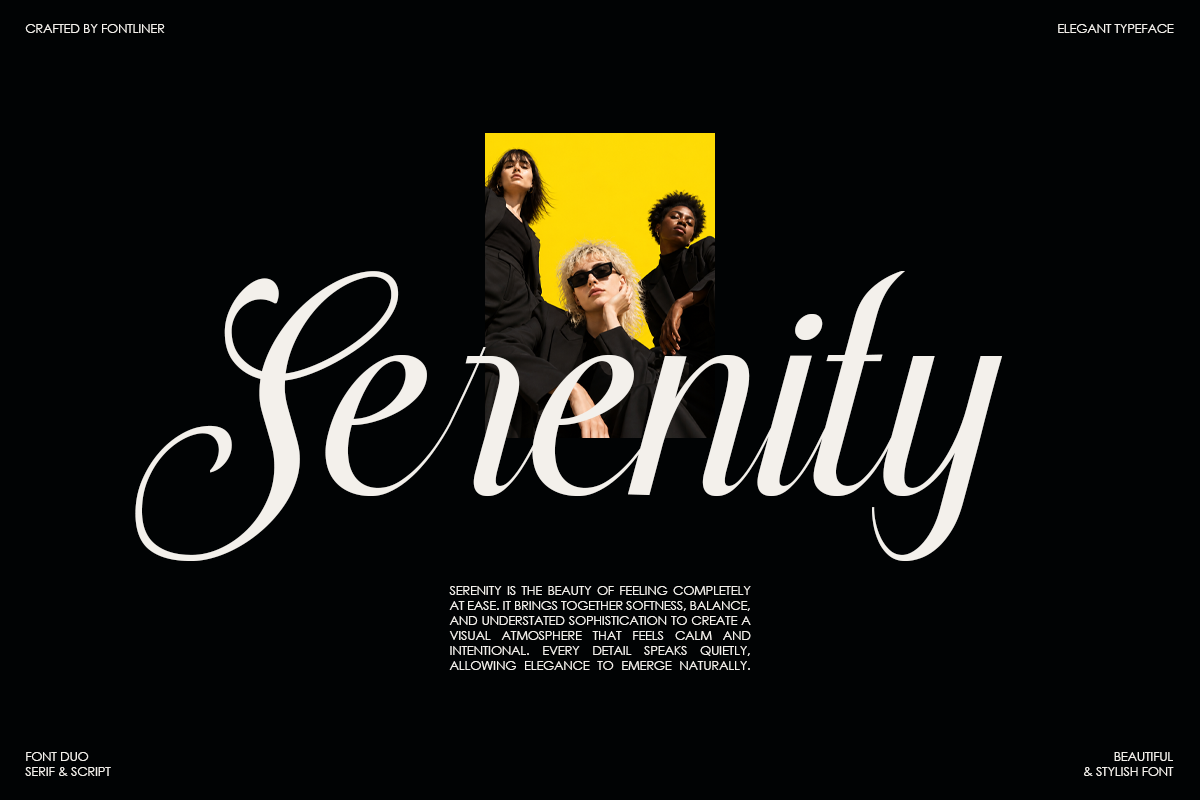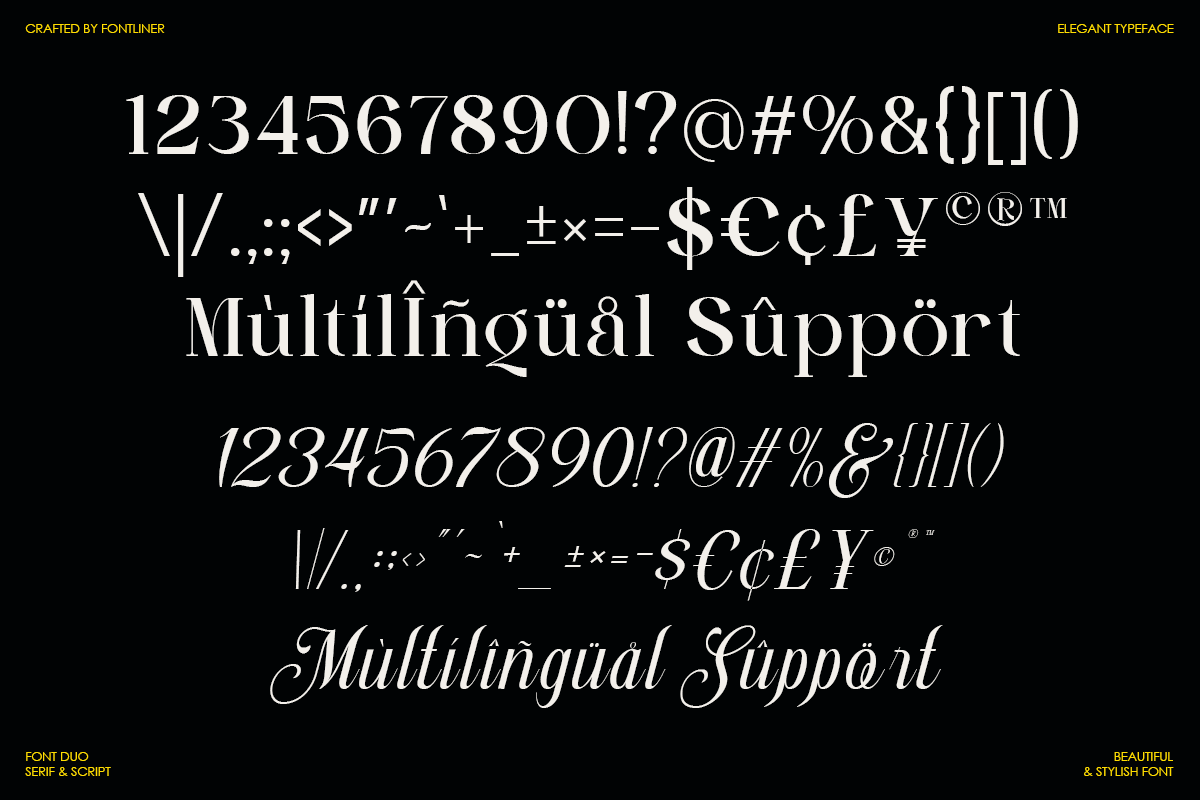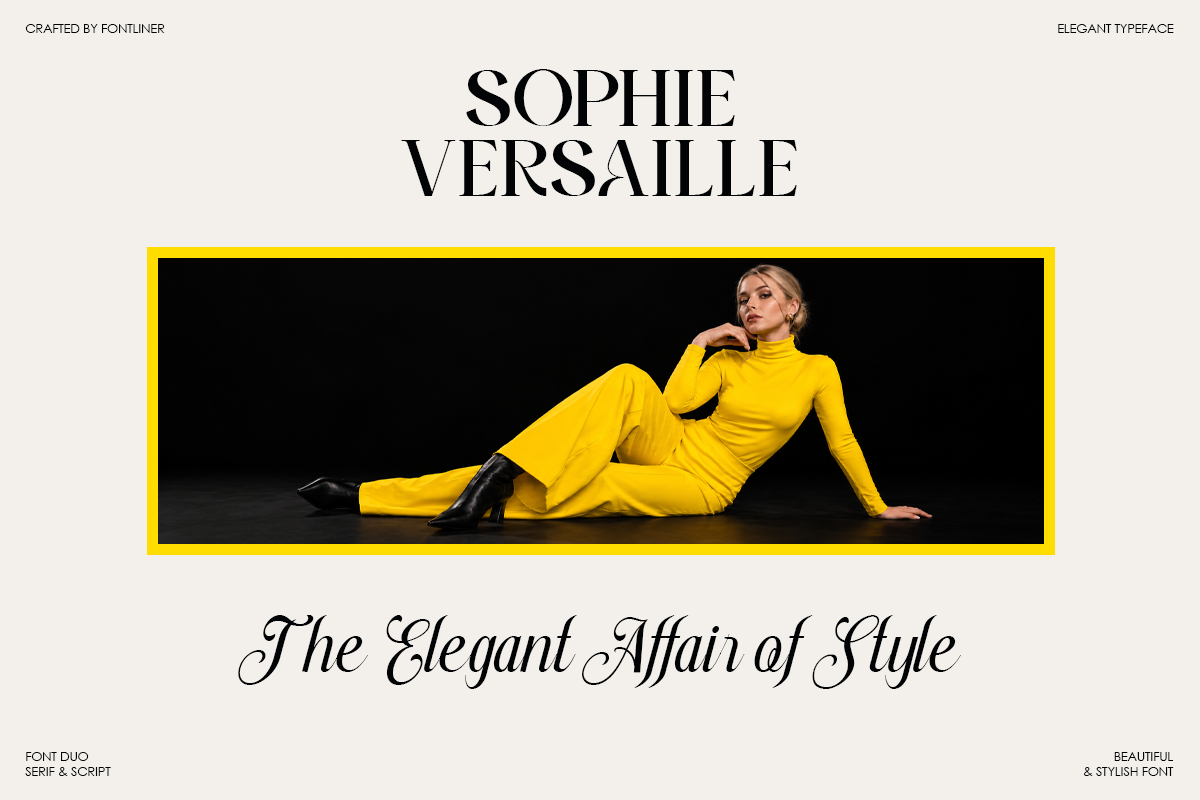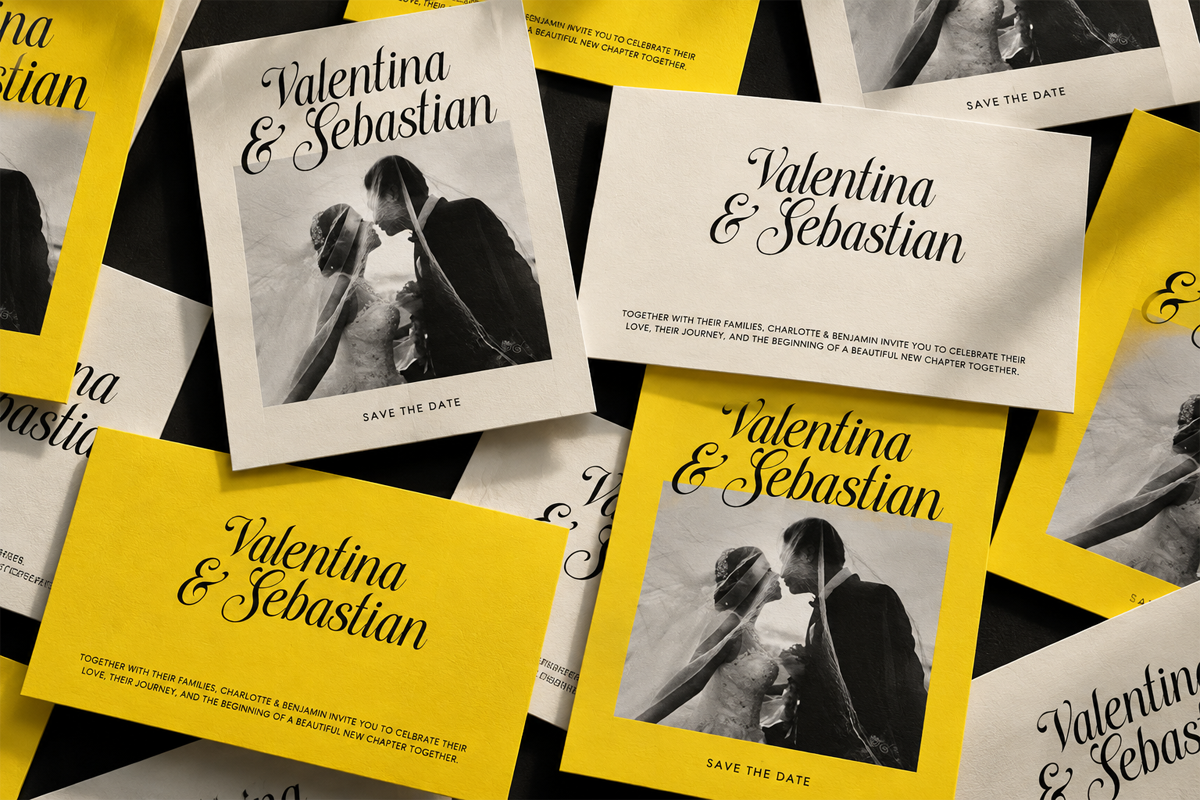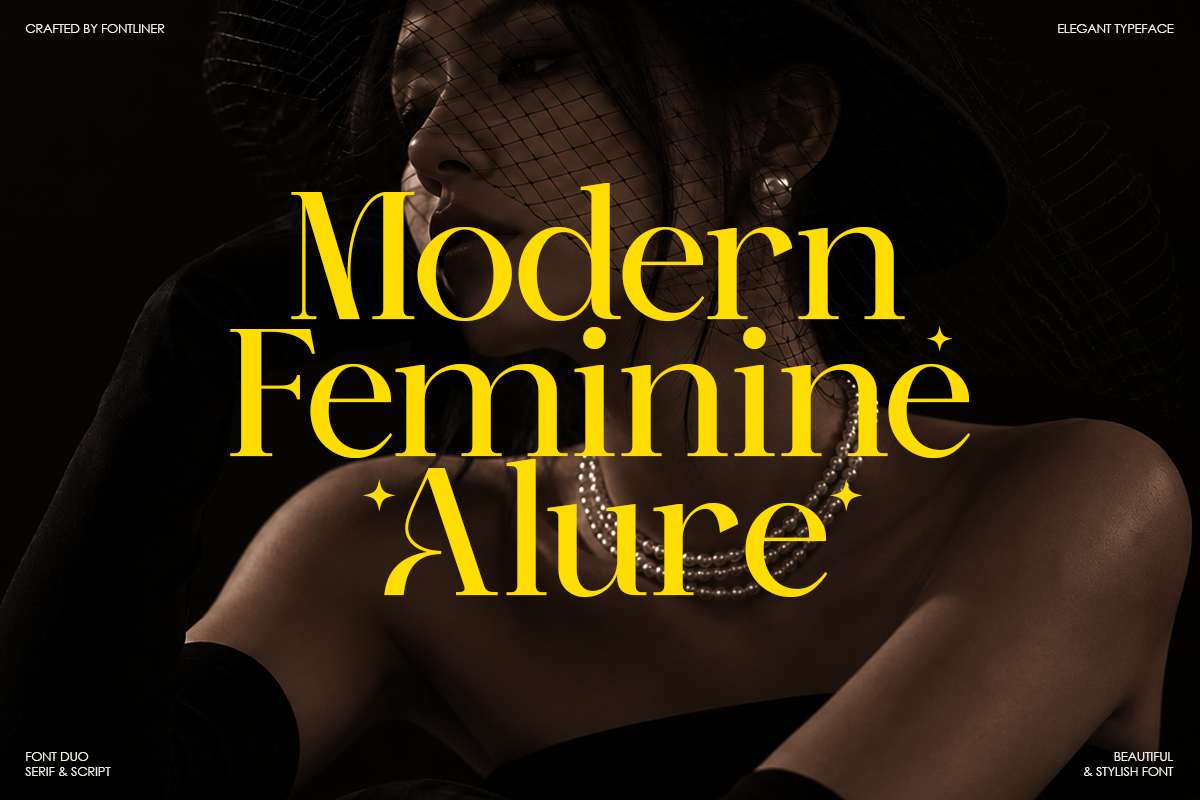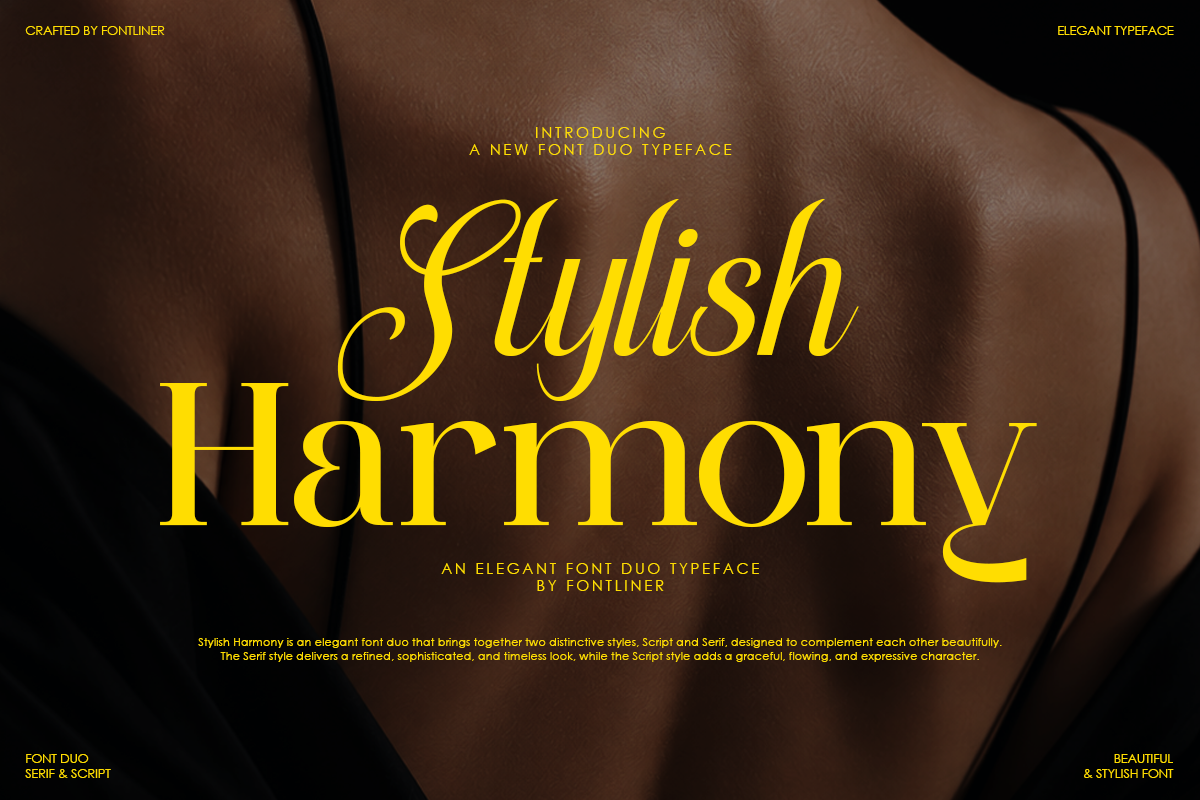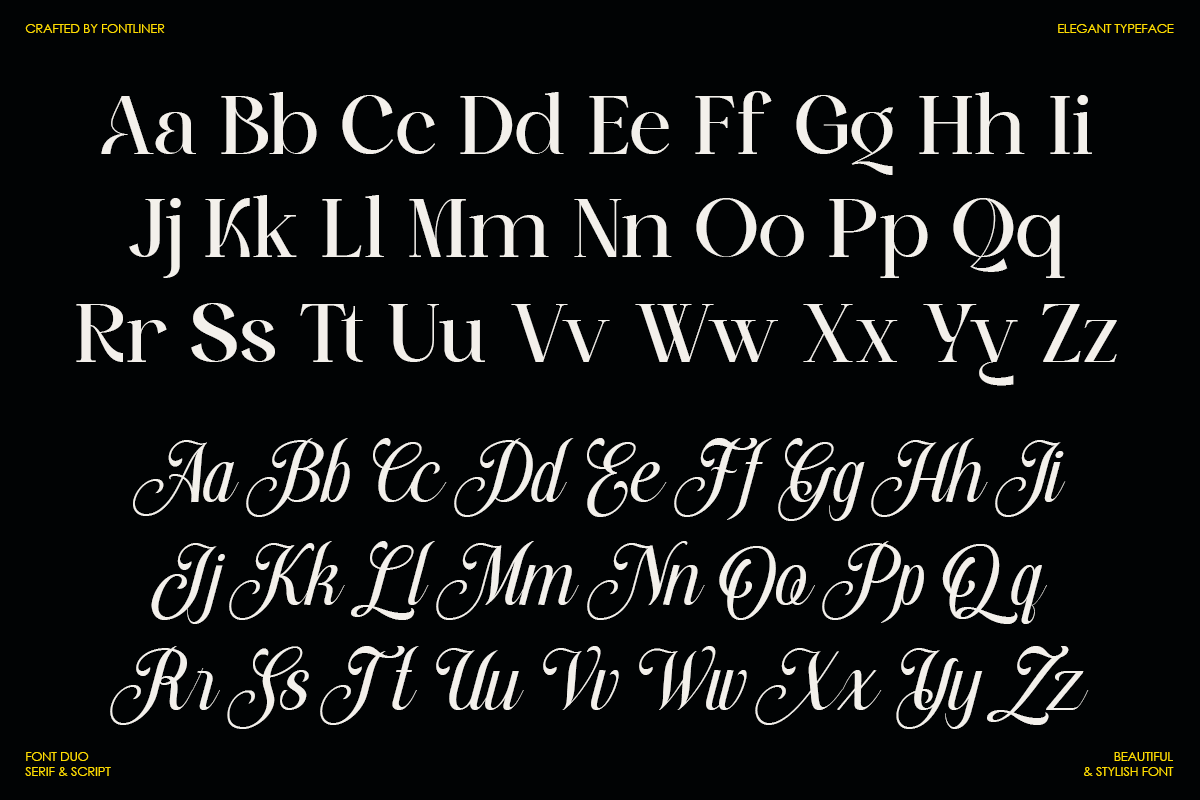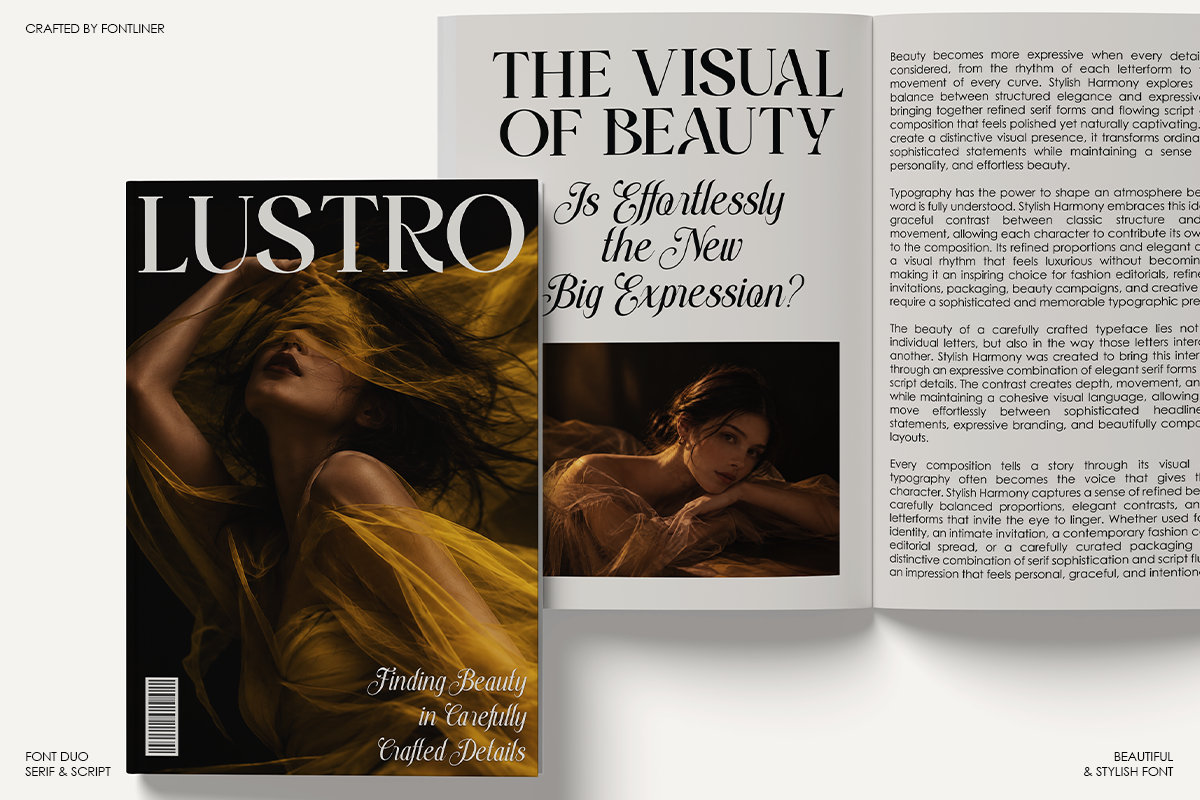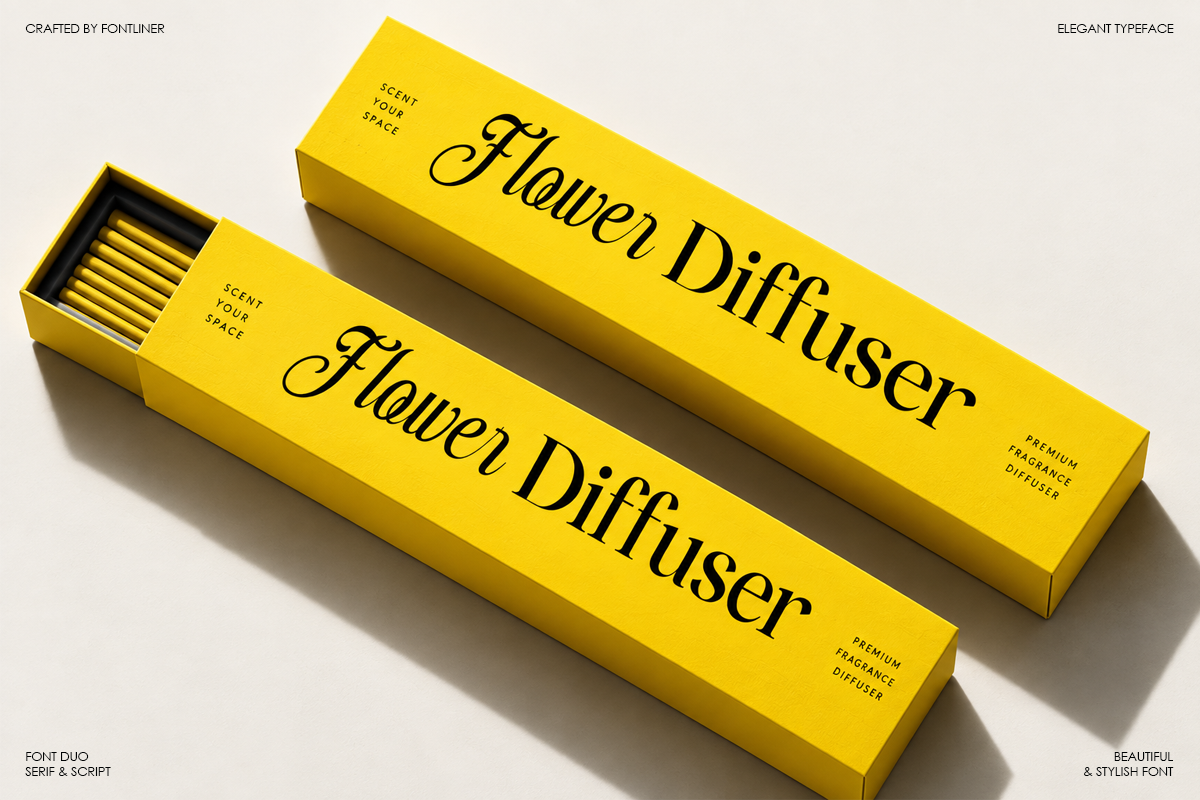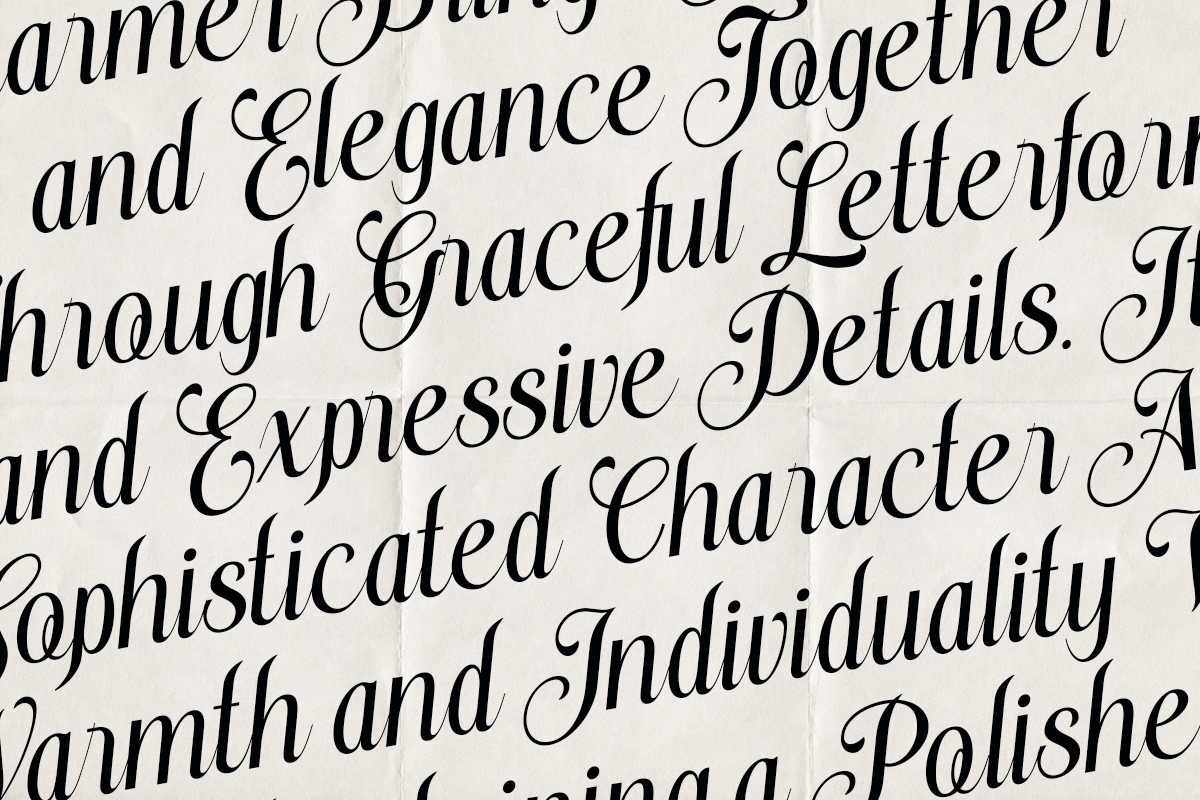
Stylish Harmony - Duo Luxury Font
**Stylish Harmony **is an elegant serif and script font duo designed to bring sophistication, femininity, and graceful character to modern creative projects. Combining a refined serif with a flowing script style, this typeface creates a beautiful balance between polished typography and expressive lettering.
With its sophisticated serif forms and graceful handwritten details, Stylish Harmony creates a refined visual identity while maintaining a warm and expressive personality. The combination works beautifully for creating elegant headlines, stylish logos, sophisticated layouts, and eye-catching typography compositions.
Perfect for luxury branding, fashion identities, beauty packaging, wedding invitations, editorial layouts, magazine covers, boutique logos, product labels, social media designs, stationery, posters, quotes, and elegant promotional materials. Stylish Harmony is also suitable for creating premium visual identities that need a feminine, fashionable, and timeless typographic touch.